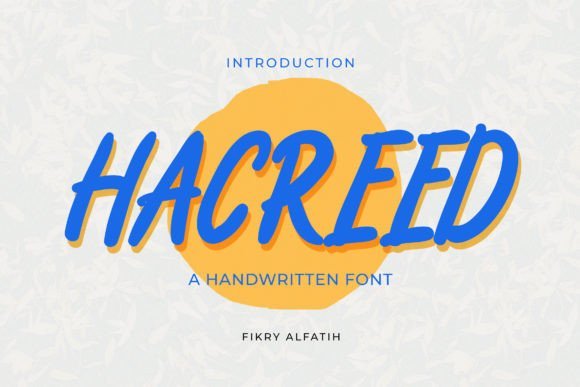
Bringing the Past to Life with the Hacreed Font
Have you ever walked into a charming vintage shop or a trendy café and been captivated by the beautiful hand-painted signs adorning the walls? Those rustic, imperfect signs have a way of transporting us to a bygone era, don’t they? As a designer, you might have found yourself wishing you could capture that same essence in your own projects.
Enter the Hacreed Font, a typographic tribute to those beloved hand-painted signs. This font is designed to evoke the warmth and character of the past, while still feeling fresh and contemporary. With the Hacreed Font, you can add a touch of nostalgia to your branding, marketing, and packaging design, making it perfect for vintage and modern projects alike.
Hacreed Font Key Features
- Unique Character Set: Hacreed Font features a unique set of characters, including ligatures, swashes, and alternate characters, adding a touch of elegance to your designs.
- Font Style: Hacreed Font is available in a single style, but its unique design elements make it suitable for use in a variety of contexts, from body text to headlines.
Hacreed Font Review
As a designer, I’m always on the lookout for unique and creative fonts to add some flair to my projects. The Hacreed Font is no exception, and I’m excited to share my thoughts on this quirky and eye-catching typeface.
- The Hacreed Font is perfect for adding a touch of whimsy and playfulness to your designs. Its unique letterforms and exaggerated curves make it stand out in a crowd.
- The font is highly customizable, with a range of weights and styles to choose from, making it easy to find the perfect fit for your project.
- The Hacreed Font is well-suited for digital and print projects, including logos, packaging, and advertising materials.
- The Hacreed Font may not be the best choice for projects that require a more formal or professional tone. Its playful nature may not be suitable for all audiences.
- The font’s unique letterforms may not be easily readable in small sizes or at a distance, which could impact its effectiveness in certain applications.
The Hacreed Font is a bold and creative typeface that’s sure to add some personality to your designs. While it may have some limitations, its unique charm and customizability make it a great choice for projects that require a touch of whimsy and flair.
For the most out of Hacreed Font, use it for titles, headings, and emphasis in your designs. It’s particularly effective for creative and artistic projects. Use it in combination with other fonts to create a unique and eye-catching look.
Alternatives to Hacreed Font
Hacreed Font is a sans-serif typeface known for its modern and clean design. However, designers may be looking for alternatives that offer unique characteristics or better compatibility. Here are a few options to consider:
Montserrat is a sans-serif font designed specifically for digital use. It features a geometric structure and a urban feel, making it perfect for modern and minimalist designs. Montserrat is a great alternative to Hacreed Font when you need a more geometric and edgy look.
Comparison to Hacreed Font: Montserrat has a more geometric structure, while Hacreed Font is more rounded and clean. Montserrat is also more suitable for digital use, while Hacreed Font is better suited for print materials.